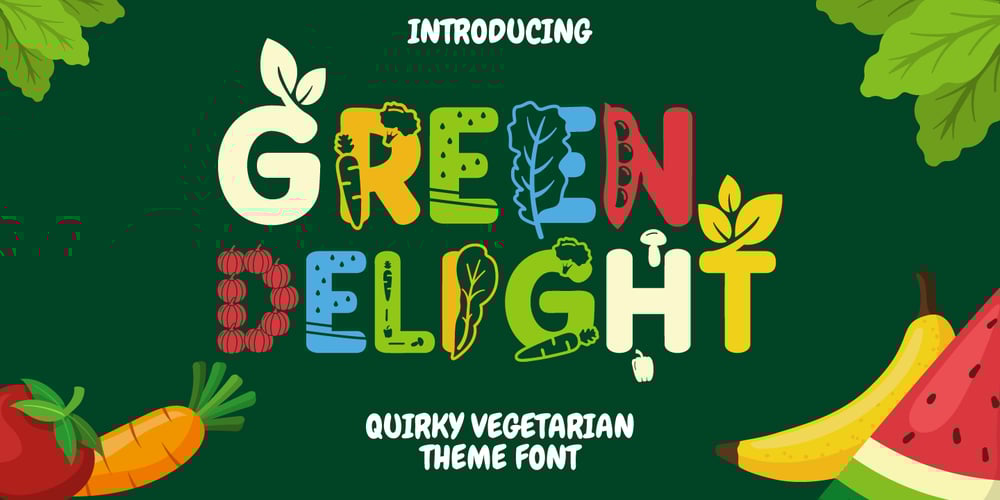
Green Delight
Green Delight font
Green Delight Font Family was designed by Putra Novembria Candra Kusuma and published by Putracetol. Green Delight contains 9 styles and family package options. Introducing “Green Delight,” a quirky vegetarian-themed font that embodies the essence of freshness, health, and the vibrant world of fruits and vegetables. This display font, with its rounded edges and unique design, is crafted for those who are passionate about nature, wellness, and creativity. Each letter is infused with elements inspired by various greens – from leafy vegetables to succulent fruits – making it a perfect choice for projects related to children, crafting, or any fun and playful themes.